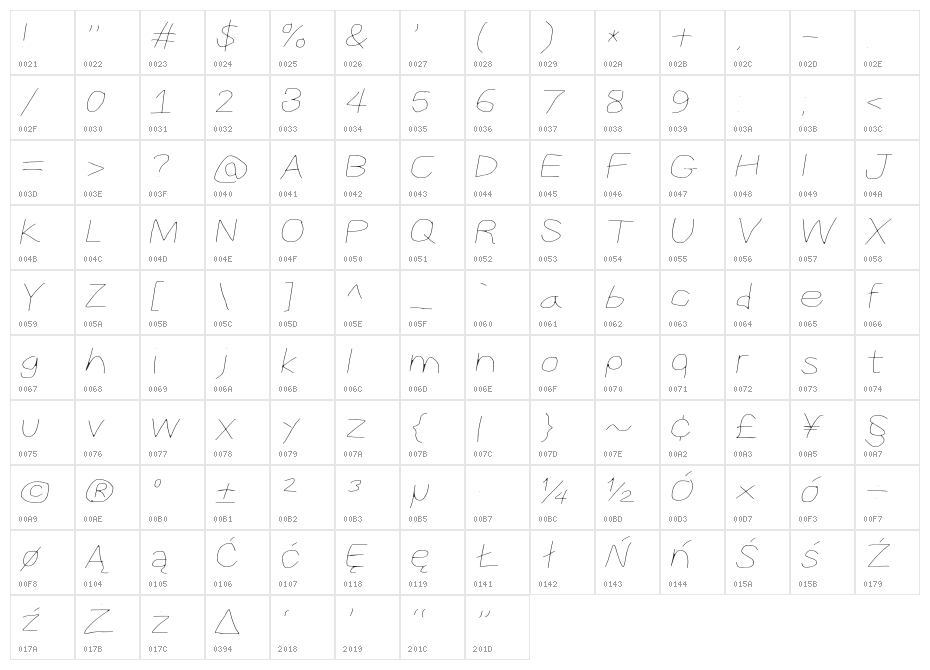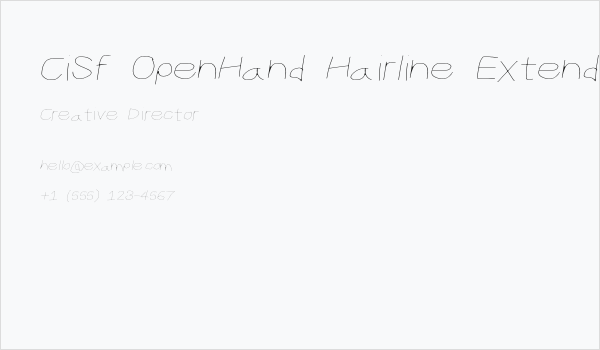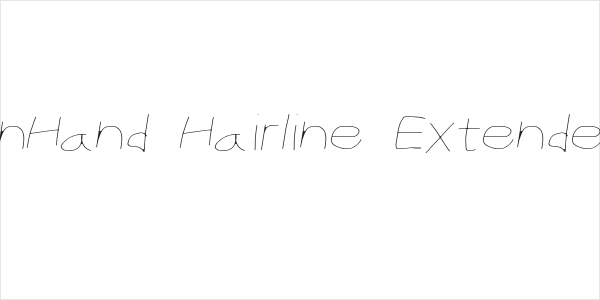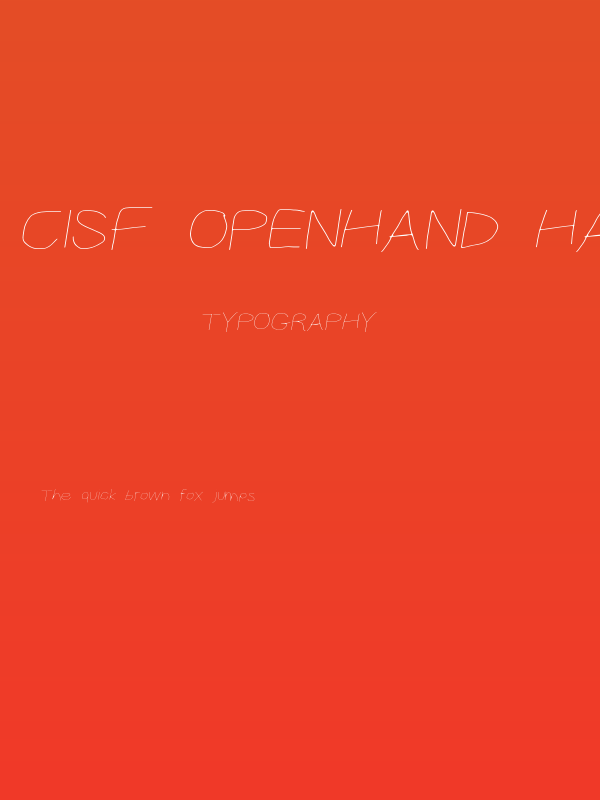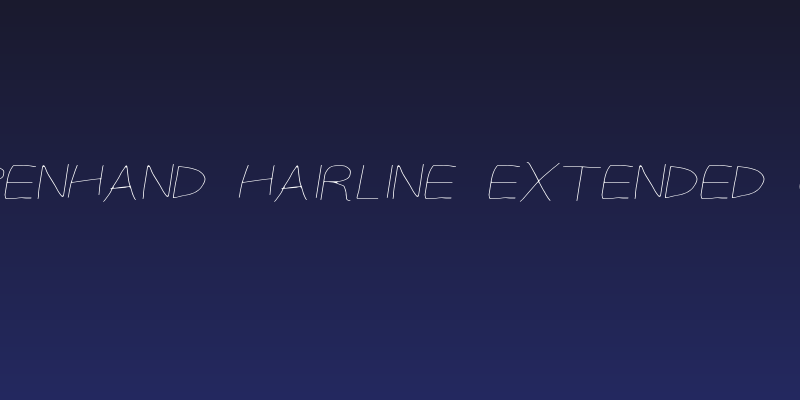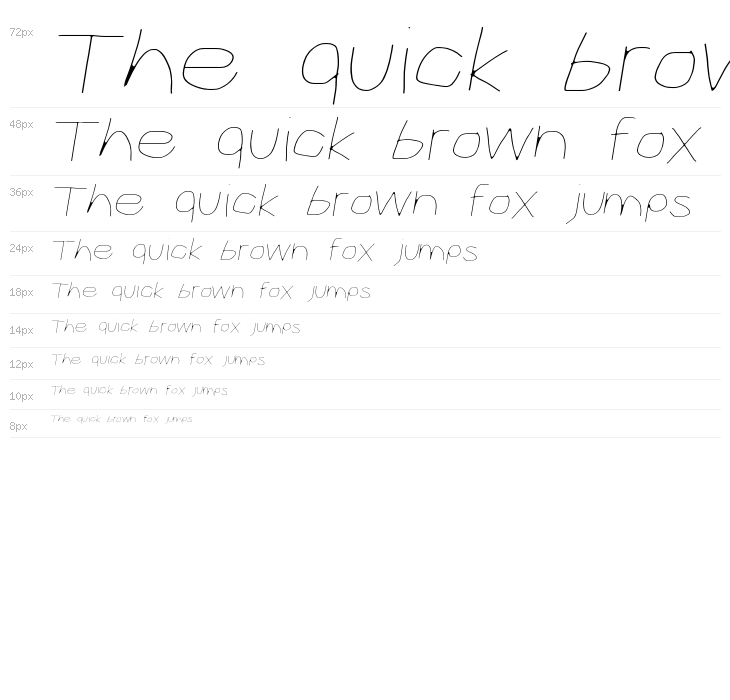
CiSf OpenHand Hairline Extended Oblique Font
CiSf OpenHand Hairline Extended Oblique Description
This font features a delicate and airy design with a hairline stroke that gives it an elegant and modern appearance. The characters are extended and slightly oblique, adding a subtle dynamic quality to the text. The uppercase and lowercase letters maintain a consistent style, with smooth curves and minimal contrast in stroke thickness. The numerals and special characters are designed to match the overall aesthetic, ensuring a cohesive look across all text elements. This font's light and open structure makes it suitable for projects that require a refined and contemporary touch.
| Proposed Projects | Ideal for fashion magazines, luxury branding, minimalist design projects, and elegant invitations. |